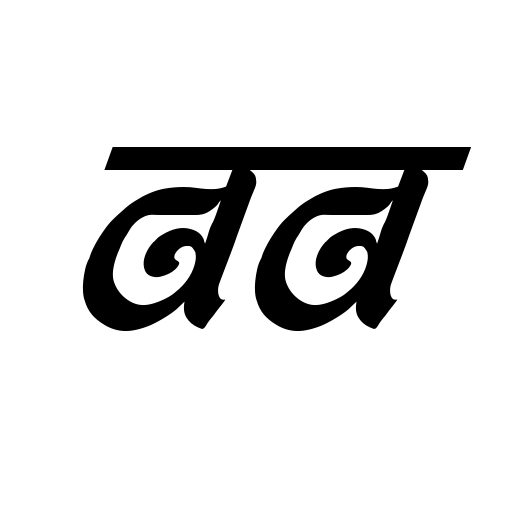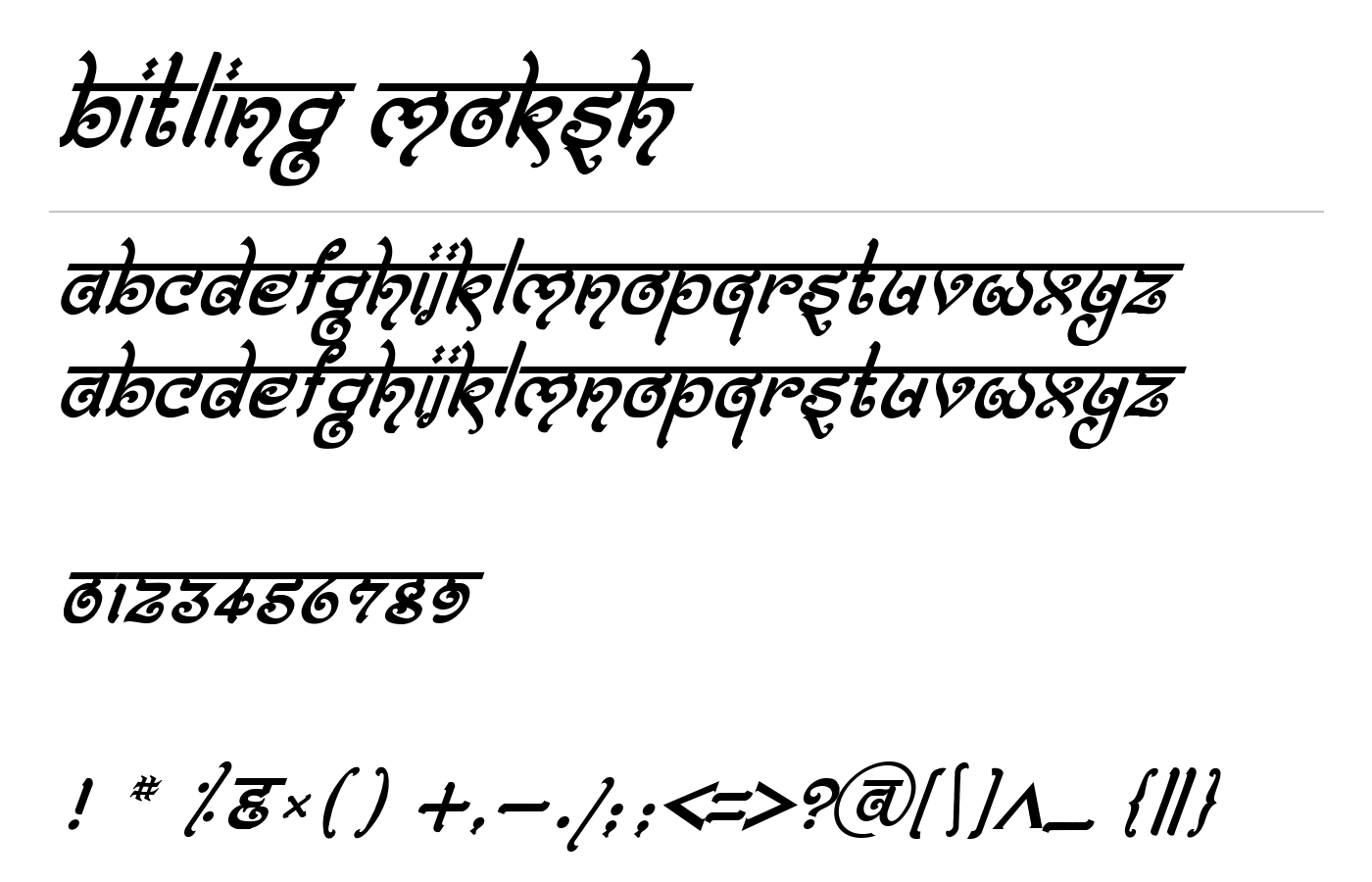
Bitling Moksh is a decorative serif font with a unique blend of calligraphic and geometric elements, featuring intricate swirls and sharp terminals that evoke an artistic and exotic feel. Its medium weight and condensed width, combined with a high contrast between strokes, make it striking for creative headlines, logos, or branding that seeks a distinctive, vintage-inspired personality. This font shines in display settings where its ornamental style can capture attention and convey an elegant yet adventurous mood.
Bitling moksh Font